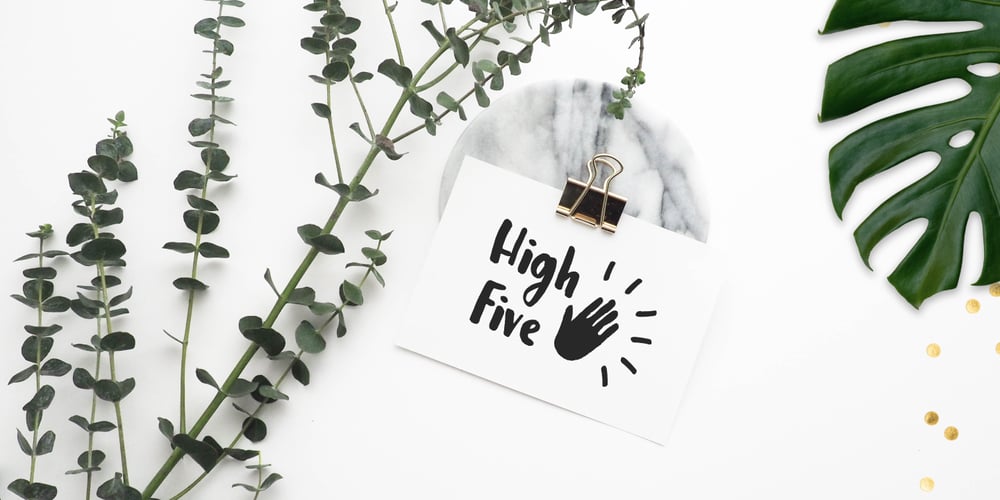
Leira
Leira font
Leira Font Family was designed by Evita Vilaka and published by WildOnes. Leira contains 1 styles and family package options. Leira hand drawn typeface is drawn by hand with a thick brush, resulting in really bold characters with some shakiness in line to get that personal touch feel. This typeface will suit for headlines, logo, titles, identities, packaging, posters, cards, quotes, etc. With the uniqueness of the shapes, Leira can definitely attract attention of anyone and be an eye catching font. The bold letters and playfulness of this font makes it stand out from the crowd.